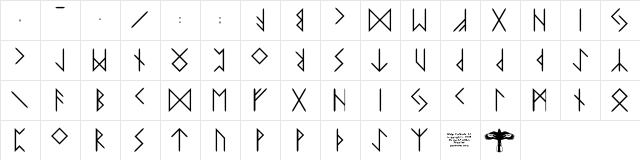
Elder Futhark Regular Free Font
Elder Futhark Regular
Complete Elder Futhark Regular glyph index. Displaying only characters natively supported by Elder Futhark Regular font.
Design Context for Elder Futhark
Elder Futhark is a composed and adaptable typeface that performs quietly and consistently across a wide range of design contexts.